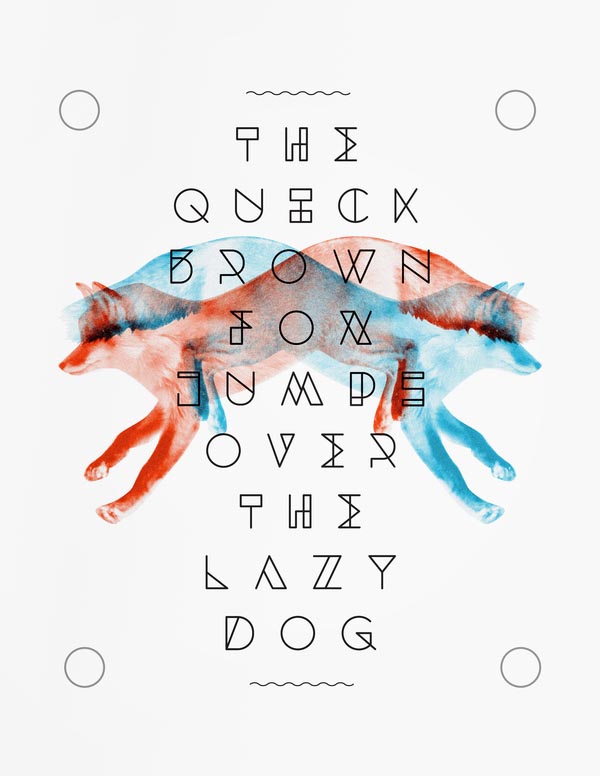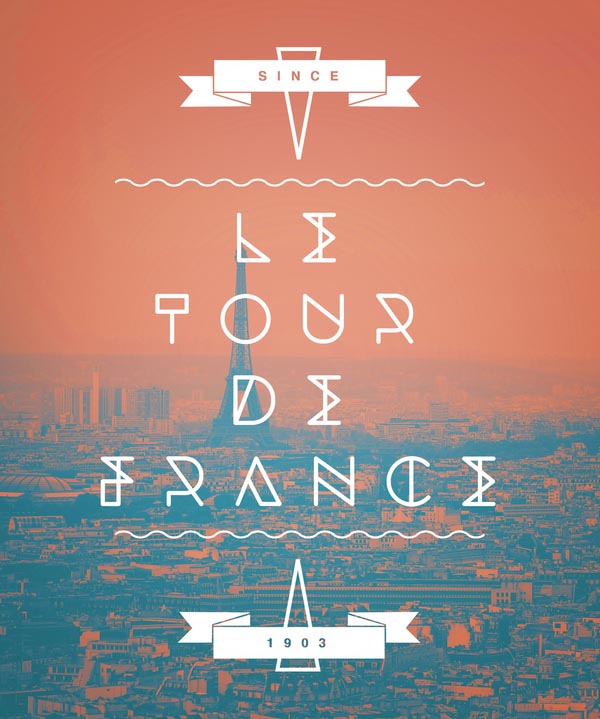
Dessau Font.
A vector based typeface by graphic designer Javier Fuentes. The font is inspired by the simplicity and intersection of lines and various geometric shapes.
“Taking inspiration from the Bauhaus; its name comes from one of the cities where the movement was originated. Each letter has its own characteristics, yet they all share the same elements. The result is a minimal looking font with modern qualities.”